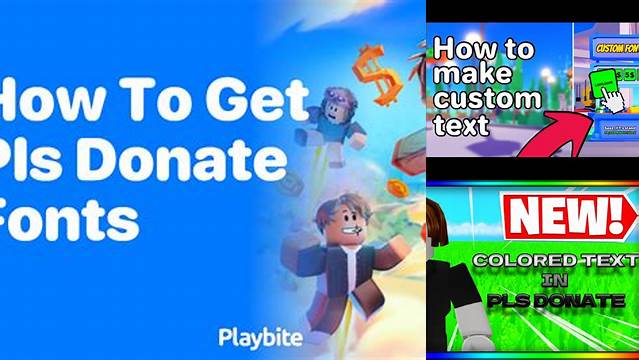
Custom Fonts In PLS DONATE: A Step-by-Step Guide
Custom fonts can significantly enhance the visual appeal of your booth in PLS DONATE, making it stand out and attract more attention from potential donors. Guys, if you're looking to elevate your booth's aesthetic and express your unique style, incorporating custom fonts is the way to go. In this comprehensive guide, we'll walk you through everything you need to know about adding custom fonts in PLS DONATE, from the technical aspects to creative tips and tricks. We'll cover the importance of choosing the right font, step-by-step instructions on how to implement them, and some common issues you might encounter along the way. By the end of this article, you'll be well-equipped to transform your booth into a visually stunning masterpiece that captures the essence of your personality and creativity. So, let's dive in and explore the world of custom fonts in PLS DONATE! Whether you're a seasoned player or just starting out, this guide will provide valuable insights and practical advice to help you make your booth truly unique. Remember, a visually appealing booth not only looks great but also increases your chances of receiving donations, so investing in custom fonts is a smart move for any serious PLS DONATE player. Let's get started and make your booth the envy of the server!
Why Use Custom Fonts in PLS DONATE?
Using custom fonts in PLS DONATE is more than just a cosmetic upgrade; it's a strategic move to enhance your presence and appeal within the game. Imagine walking through a bustling server filled with booths, each vying for attention. A booth with a standard, default font blends into the background, while one with a unique and eye-catching custom font immediately stands out. This visual distinction is crucial in capturing the attention of players who might be willing to donate. Think of your booth as your personal brand within the game. The fonts you use contribute significantly to this brand identity. A well-chosen font can convey your personality, style, and even the message you want to communicate. For example, a playful, whimsical font might attract a younger audience, while a sleek, modern font might appeal to more serious players. By carefully selecting your font, you can tailor your booth's appearance to resonate with your target audience and increase your chances of receiving donations. Moreover, custom fonts can add a professional touch to your booth. A booth that looks polished and well-designed gives the impression that you're serious about the game and dedicated to your cause. This professionalism can instill confidence in potential donors, making them more likely to contribute. In a game where first impressions matter, custom fonts can be the secret weapon that sets you apart from the competition. So, whether you're aiming for a fun, quirky vibe or a sophisticated, elegant look, incorporating custom fonts is a powerful way to elevate your PLS DONATE experience and maximize your earning potential. Let's explore how you can make this happen!
Step-by-Step Guide to Adding Custom Fonts
Adding custom fonts to your PLS DONATE booth might seem daunting at first, but it's actually a straightforward process once you break it down into manageable steps. Guys, follow this guide closely, and you'll be rocking a unique font in no time! First, you'll need to find a font that you love and that fits the aesthetic you're going for. There are tons of websites out there that offer free fonts, like Google Fonts, DaFont, and FontSpace. Spend some time browsing and experimenting with different styles until you find one that really clicks with you. Make sure the font you choose is legible and easy to read, even at a distance, as readability is key to attracting attention in PLS DONATE. Once you've found your font, download the font file. These files usually come in .ttf or .otf format. Keep the downloaded file in a safe place on your computer, as you'll need it later. Next, you'll need to convert the font into a format that Roblox can understand. Roblox uses image-based fonts, so you'll need to create a font sheet. There are online tools and software available that can help you with this process. One popular method is to use a font generator tool that converts your font into an image file containing all the characters. This image file will serve as your custom font within the game. After generating the font sheet, upload the image to Roblox as a decal. This is an important step, as the game needs to be able to access the font image. Once the decal is uploaded, you'll get an asset ID, which you'll need to use in your PLS DONATE booth settings. Finally, configure your booth in PLS DONATE to use the custom font. This usually involves entering the asset ID of your font decal into the appropriate field in the booth customization settings. You might also need to adjust the font size and other parameters to ensure it looks just right. And that's it! You've successfully added a custom font to your PLS DONATE booth. Remember to test it out and make any necessary adjustments to achieve the perfect look. With a little practice, you'll be a pro at customizing your booth with unique fonts!
Finding the Right Font for Your Booth
The right font can make all the difference in how your PLS DONATE booth is perceived. It's not just about picking a font you personally like; it's about choosing a font that effectively communicates your style and message to other players. Guys, let's explore some tips and considerations to help you find the perfect font for your booth. First, think about the overall vibe you want to create. Are you going for a playful and fun look, or something more serious and professional? The font you choose should align with this vision. For a fun and quirky booth, consider fonts that are bold, rounded, or even slightly whimsical. These fonts can add a touch of personality and make your booth more inviting. On the other hand, if you're aiming for a more sophisticated or professional look, opt for fonts that are clean, modern, and easy to read. Sans-serif fonts like Arial or Helvetica can be a great choice for this style. Next, consider readability. No matter how stylish a font is, it won't be effective if people can't read it easily. Avoid fonts that are too decorative or have overly intricate details, as these can be difficult to decipher, especially at a distance. Choose fonts that are clear and legible, even when viewed from afar. Also, think about contrast. The color of your font should contrast well with the background of your booth to ensure maximum readability. A light font on a dark background or vice versa is generally a good rule of thumb. Don't be afraid to experiment with different fonts and see how they look in your booth. Try out a few different options and get feedback from friends or other players. Sometimes, a font might look great in isolation but not quite fit the overall aesthetic of your booth. Finally, remember to check the licensing of the fonts you use. Some fonts are free for personal use but require a license for commercial purposes. Make sure you're using fonts that you're legally allowed to use in your PLS DONATE booth. By taking these factors into consideration, you can find a font that not only looks great but also effectively communicates your message and attracts attention to your booth. Let's move on to the technical aspects of implementing your chosen font!
Even with a clear guide, you might encounter some common issues when adding custom fonts to your PLS DONATE booth. Guys, don't worry! We're here to help you troubleshoot and get your fonts looking perfect. One of the most frequent problems is incorrect font formatting. As mentioned earlier, Roblox uses image-based fonts, so you can't simply upload a .ttf or .otf file directly. You need to convert the font into a font sheet image. If your font isn't displaying correctly, double-check that you've properly converted it and uploaded it as a decal. Another common issue is incorrect asset ID. When you upload a decal to Roblox, you receive an asset ID, which is a unique number that identifies your image. If you enter the wrong asset ID in your booth settings, your custom font won't appear. Make sure you've copied the correct asset ID and pasted it into the appropriate field. Font size and scaling can also be tricky. Sometimes, your font might appear too large or too small in your booth. This can happen if the font sheet image wasn't generated at the right size or if the scaling settings in your booth aren't properly configured. Experiment with different font sizes and scaling options until you achieve the desired look. Compatibility issues can also arise. Not all fonts work perfectly with Roblox, especially if they have complex or unusual designs. If you're experiencing issues with a particular font, try a different one to see if that resolves the problem. It's also a good idea to test your font on different devices and screen sizes. A font that looks great on your computer might not look as good on a mobile device or a larger monitor. Make sure your font is legible and visually appealing across various platforms. Finally, check for Roblox updates. Sometimes, updates to the game can affect how custom fonts are displayed. If you've recently updated Roblox and are experiencing font issues, it might be due to a compatibility problem. Keep an eye on Roblox community forums and discussions for any known issues and potential solutions. By addressing these common problems and following our troubleshooting tips, you can overcome any challenges and get your custom fonts looking fantastic in your PLS DONATE booth. Let's wrap things up with some final tips and best practices!
Tips and Best Practices for Custom Fonts in PLS DONATE
To truly master the art of custom fonts in PLS DONATE, it's not enough to just implement them; you need to use them effectively. Guys, here are some final tips and best practices to help you maximize the impact of your custom fonts and make your booth a standout success. First and foremost, prioritize readability. We've mentioned this before, but it's worth reiterating: your font should be easy to read. A beautiful font is useless if people can't decipher it. Choose fonts that are clear, legible, and have good contrast with your background. Avoid overly decorative or intricate fonts that can strain the eyes. Next, use fonts sparingly. Just because you can use a custom font doesn't mean you should use it everywhere. Overusing custom fonts can make your booth look cluttered and overwhelming. Use them strategically to highlight key information or add a touch of personality, but don't go overboard. Consistency is key. Stick to one or two custom fonts throughout your booth to create a cohesive and professional look. Mixing too many different fonts can make your booth look disorganized and unprofessional. Choose fonts that complement each other and use them consistently. Consider your target audience. Think about who you're trying to attract to your booth and choose fonts that resonate with them. A font that appeals to a younger audience might not be as effective for older players, and vice versa. Tailor your font choices to your target demographic. Don't be afraid to get creative, but always keep functionality in mind. Custom fonts are a great way to express your personality and style, but they shouldn't come at the expense of usability. Make sure your fonts enhance your booth's appeal without compromising its functionality. Regularly update your fonts. Just like any other aspect of your booth, your fonts might need a refresh from time to time. Keep an eye out for new and exciting fonts and don't be afraid to experiment with different styles. Keeping your booth looking fresh and up-to-date can help you attract more attention and donations. Finally, seek inspiration from others. Look at other successful PLS DONATE booths and see how they're using custom fonts. Pay attention to what works and what doesn't, and use this knowledge to inform your own font choices. By following these tips and best practices, you can harness the power of custom fonts to create a truly impressive and effective PLS DONATE booth. Go out there and make your booth shine!